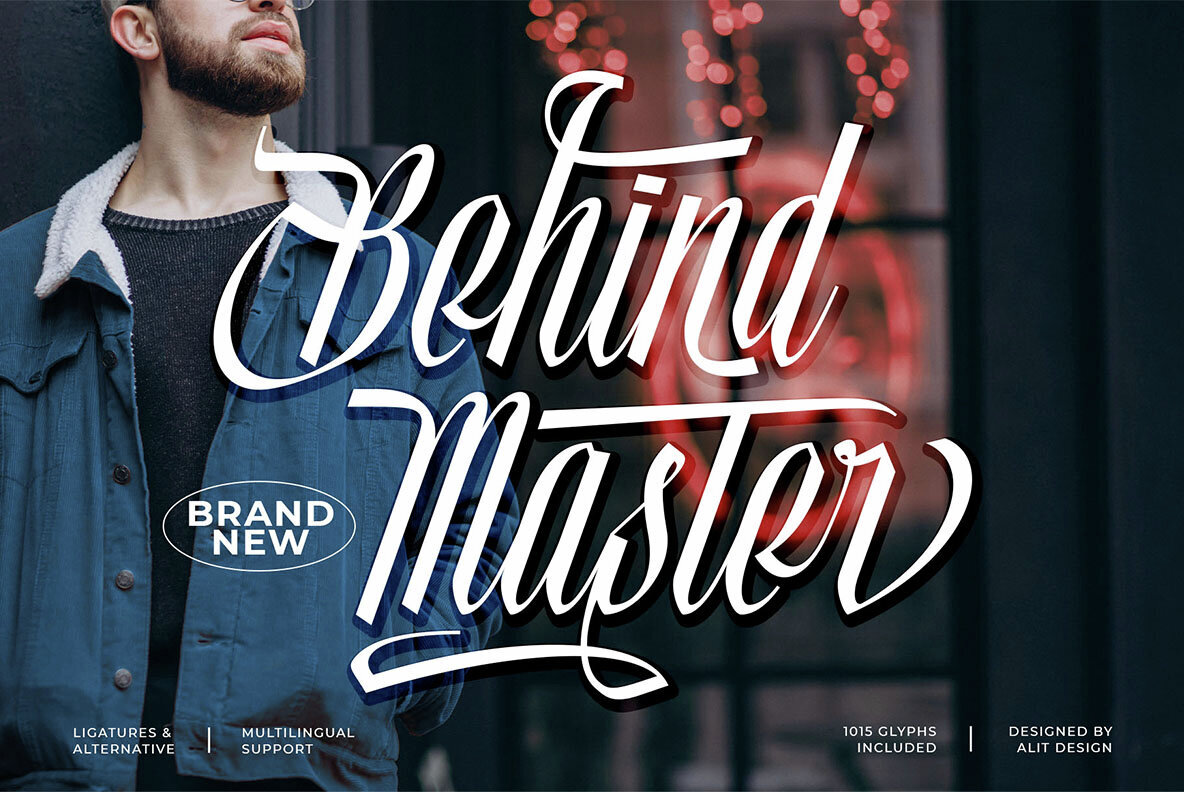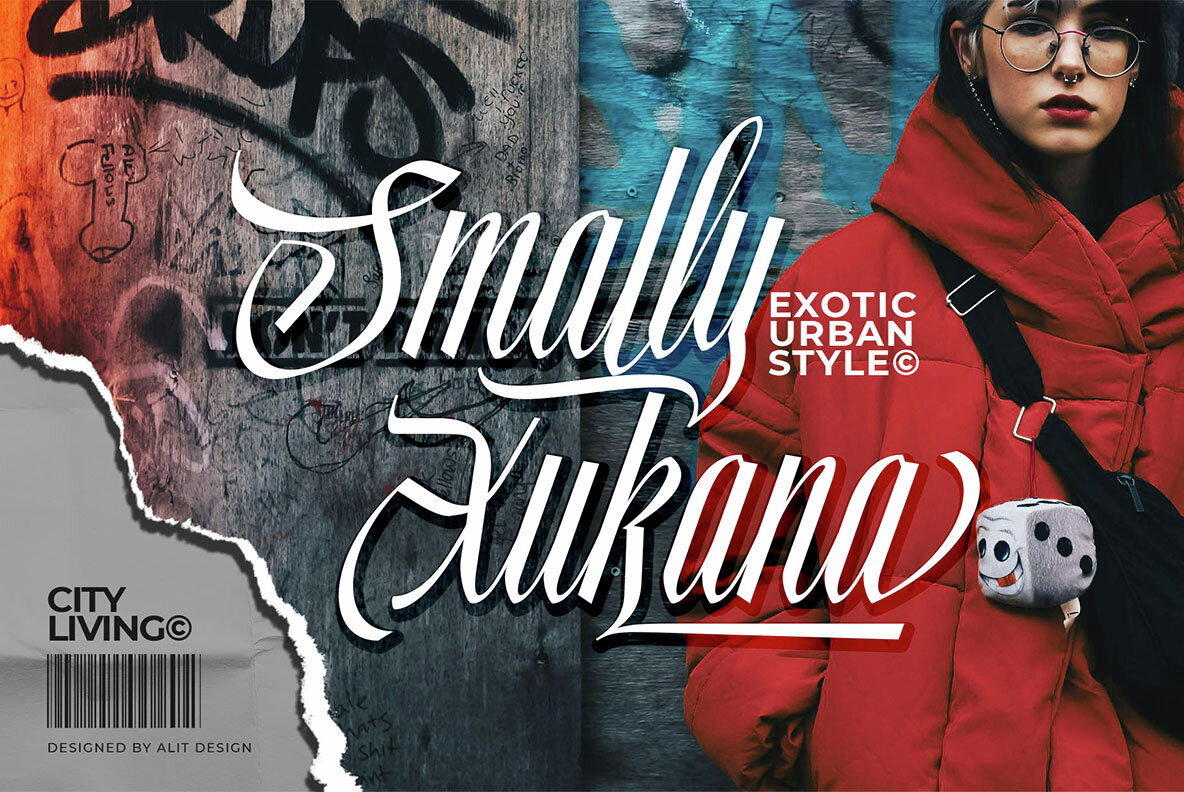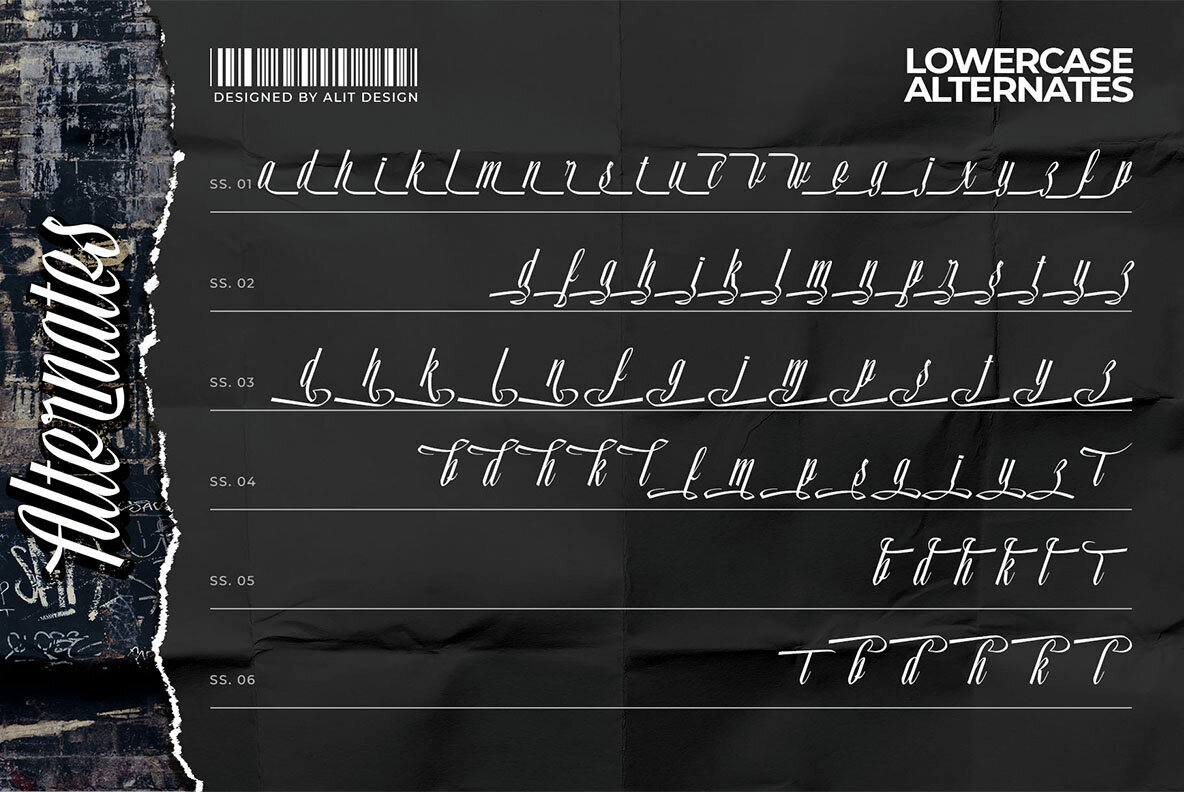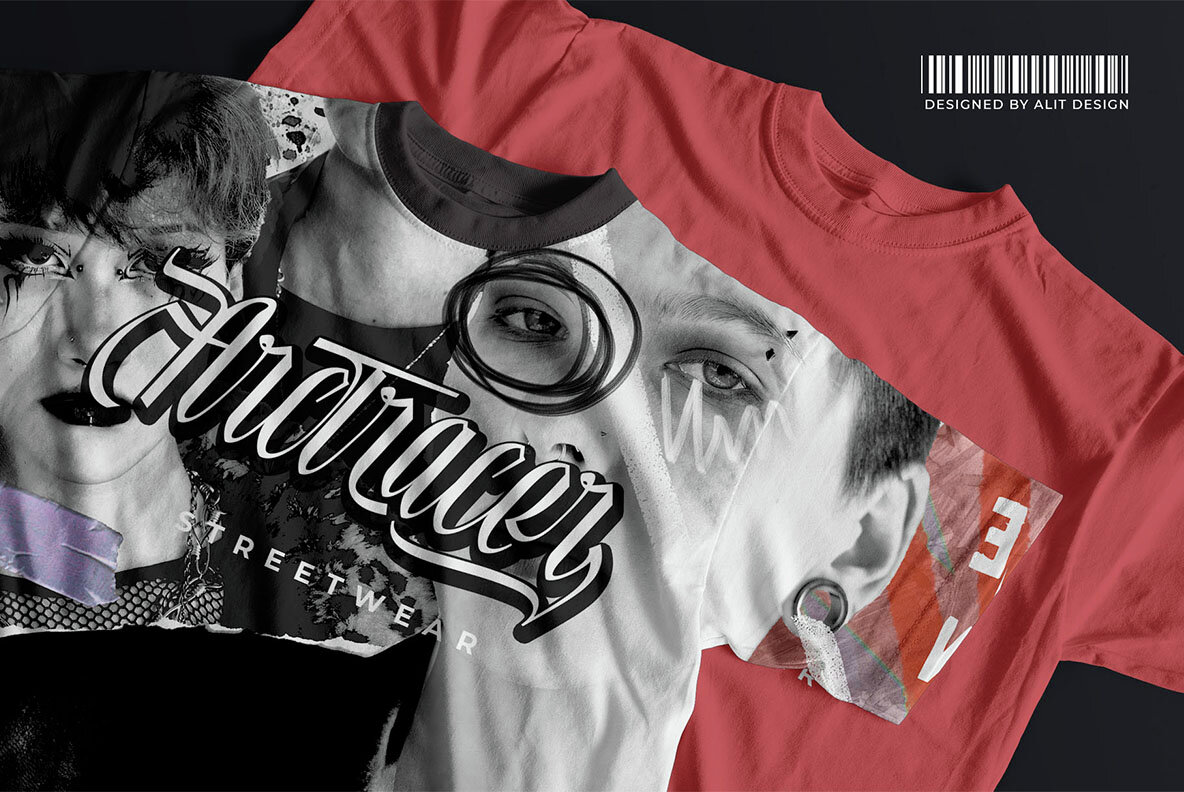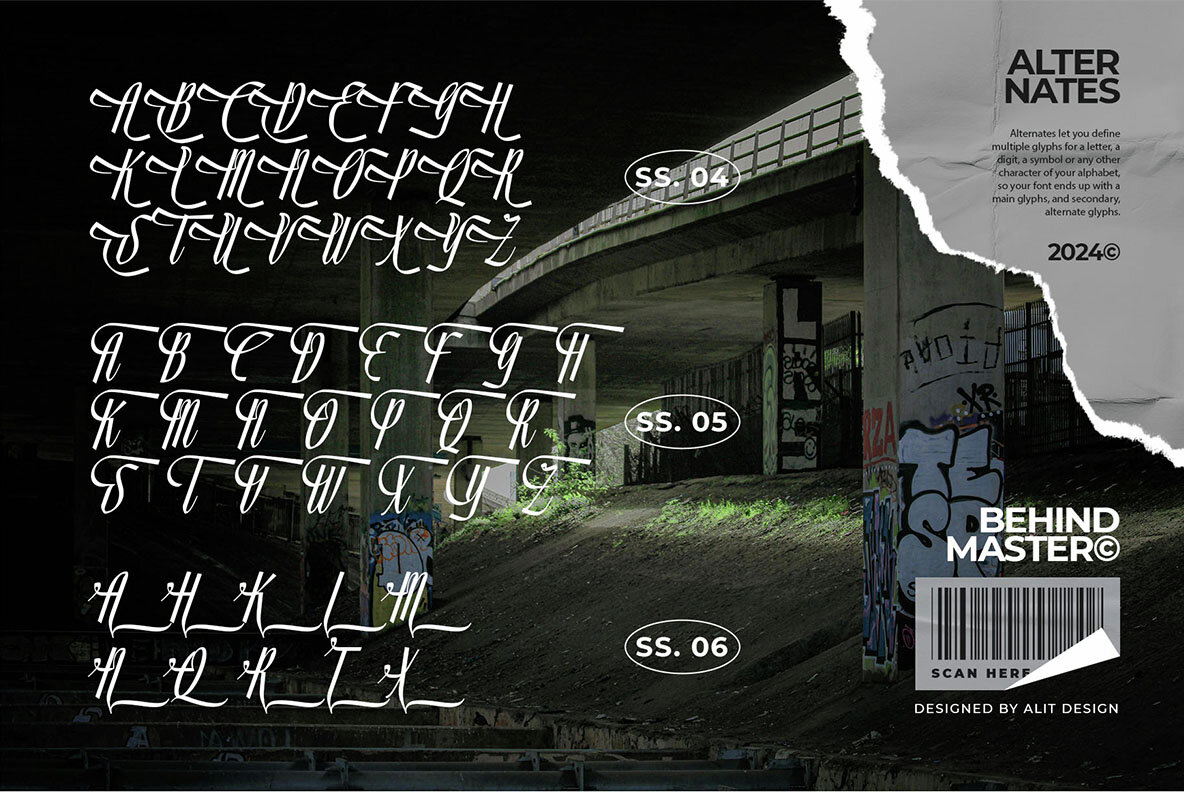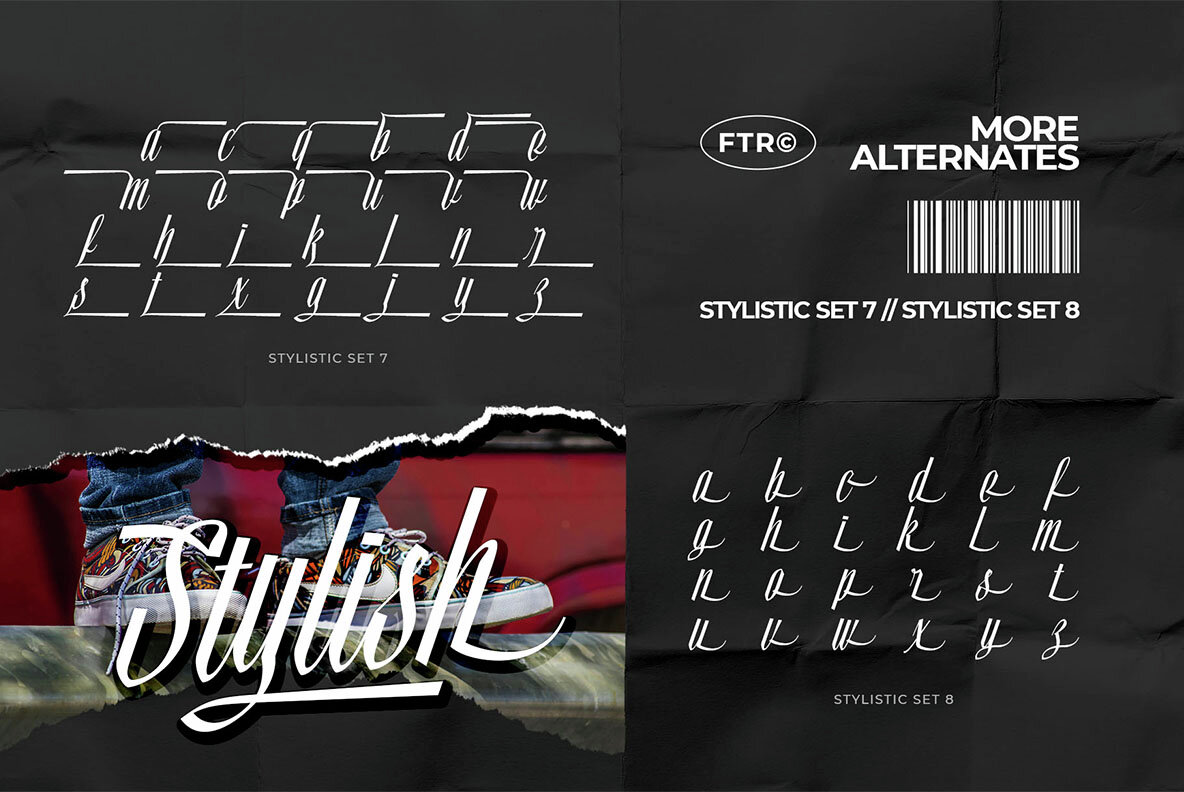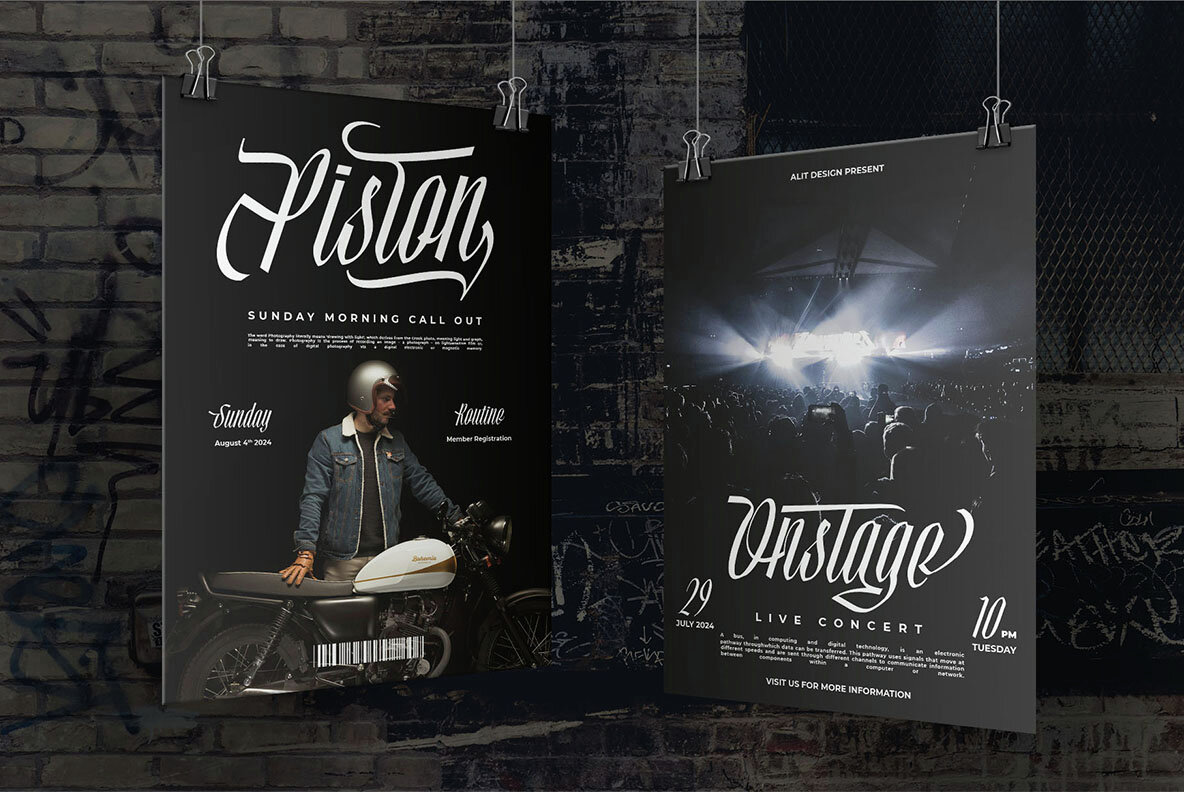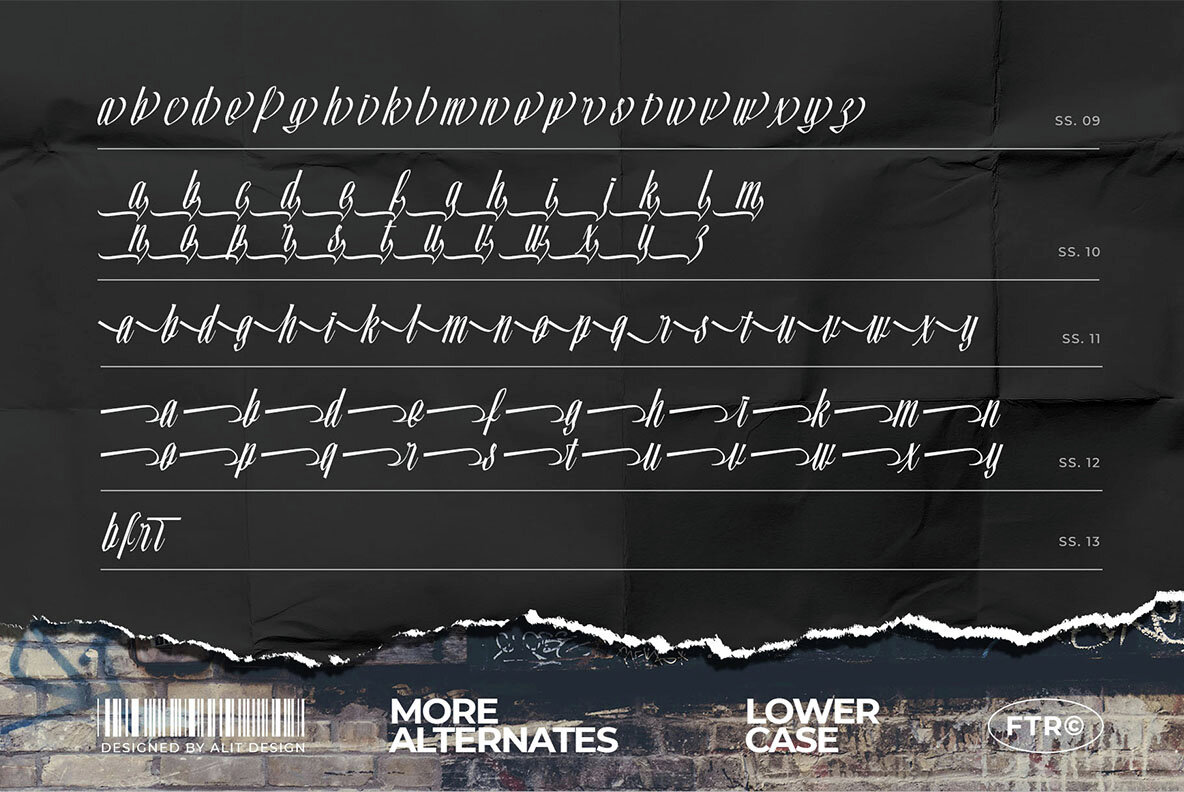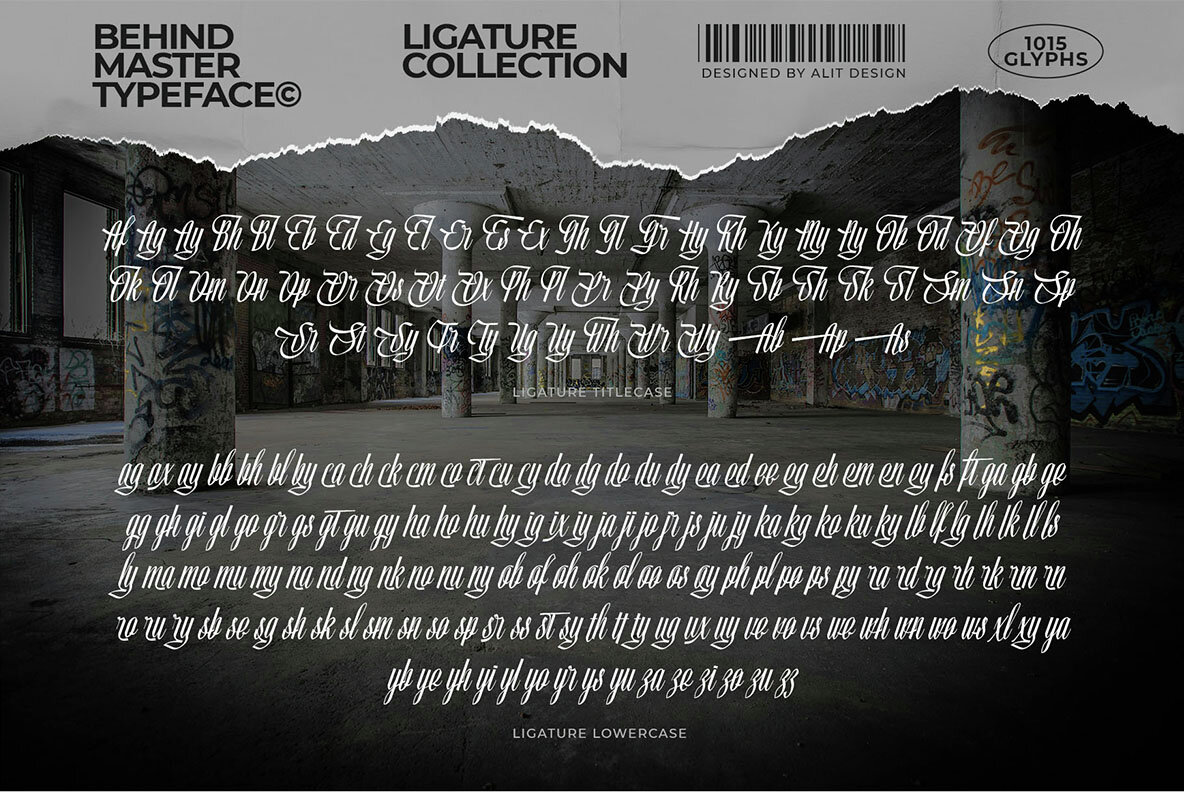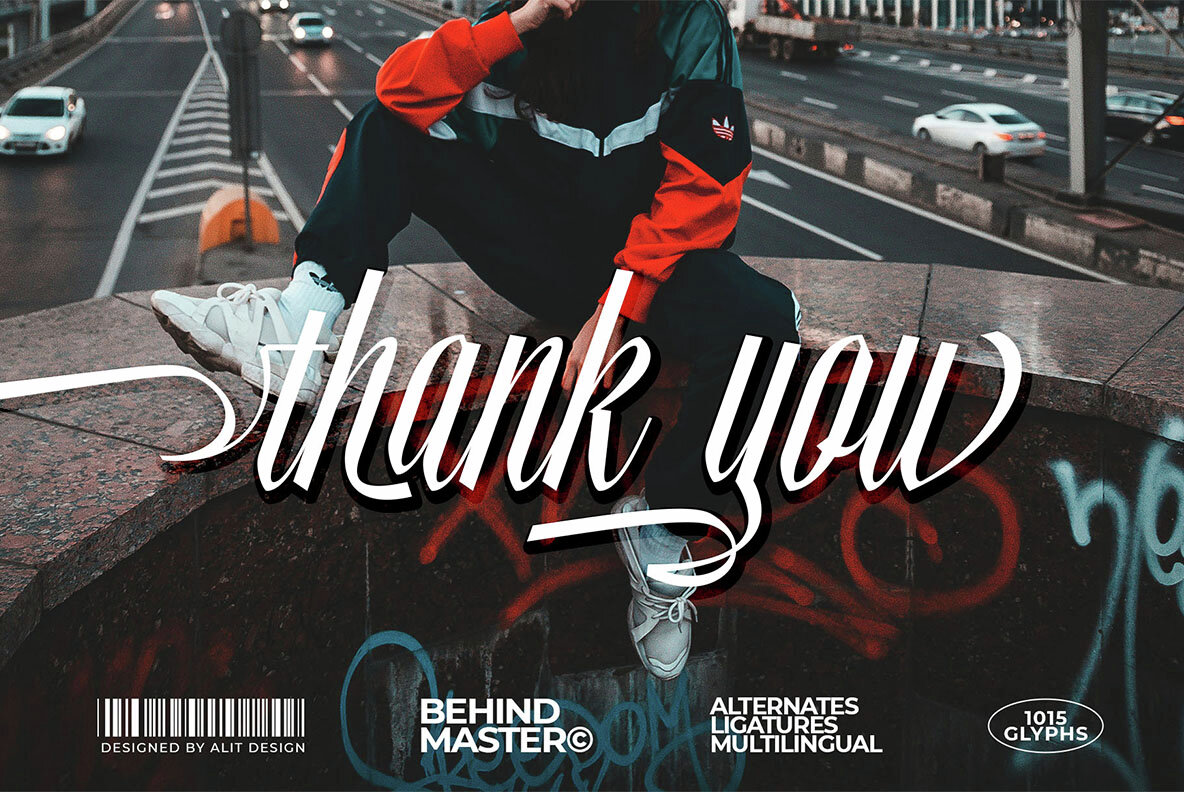
Behind Master Font
Behind Master Regular
Unleash your creativity with Behind Master Font, a premium typeface meticulously designed to captivate and inspire. Perfect for designers, artists, and typography enthusiasts, this font combines style and functionality to meet your diverse creative needs. It features a variety of themes: Fierce Script for bold, attention-commanding headlines; Speedy for dynamic, energetic designs; Dynamic for visually flowing text; Ligature for seamless and fluid readability; and Swash for an elegant, decorative touch.
Boasting an impressive 1015 characters, Behind Master Font covers a comprehensive range of design requirements, including uppercase and lowercase letters, numerals, punctuation, and special characters. This font is ideal for various projects such as branding, posters, invitations, and social media posts. Carefully crafted for readability and aesthetic excellence, it ensures your text stands out across different mediums. Transform your designs with this versatile typeface, available for immediate download to bring your creative visions to life.